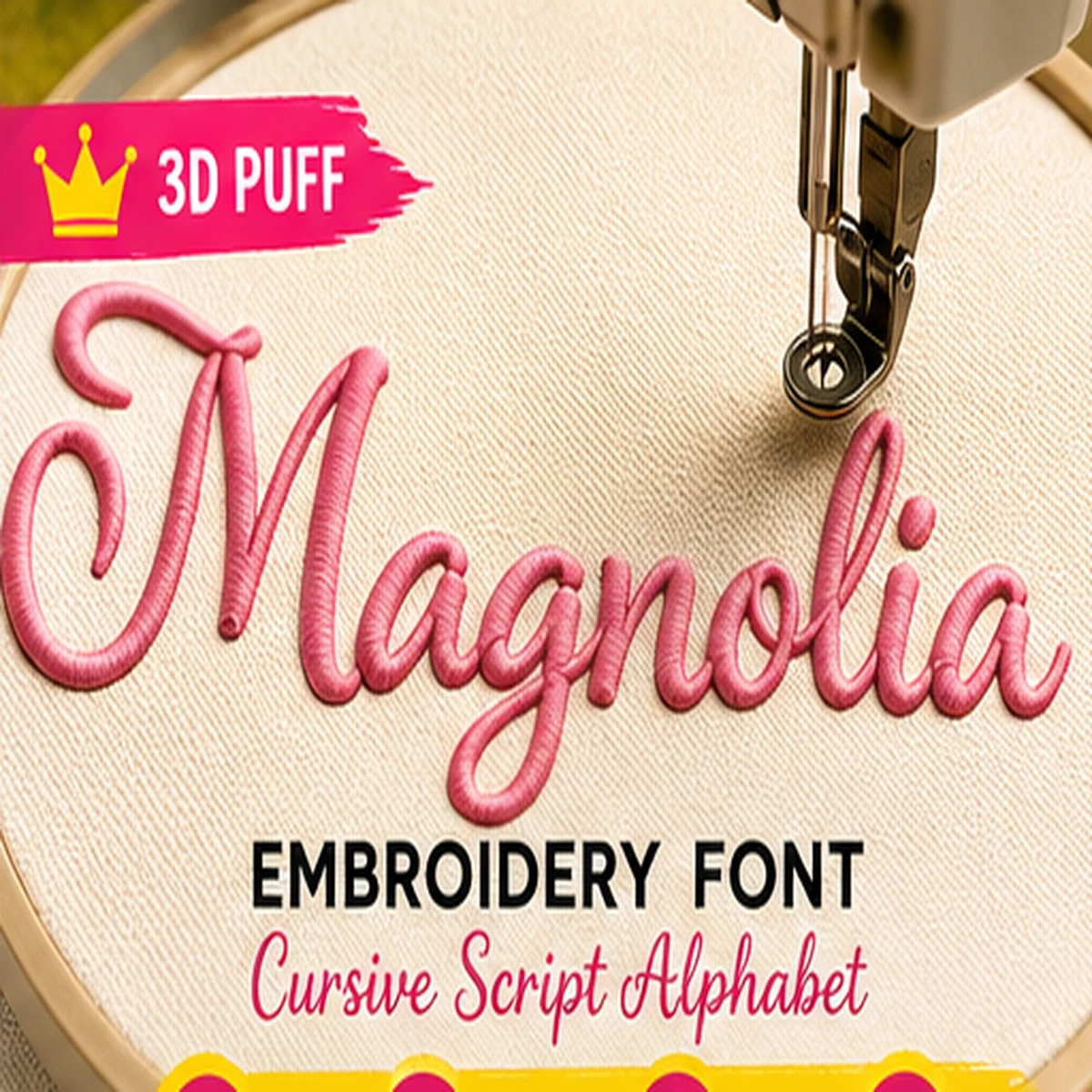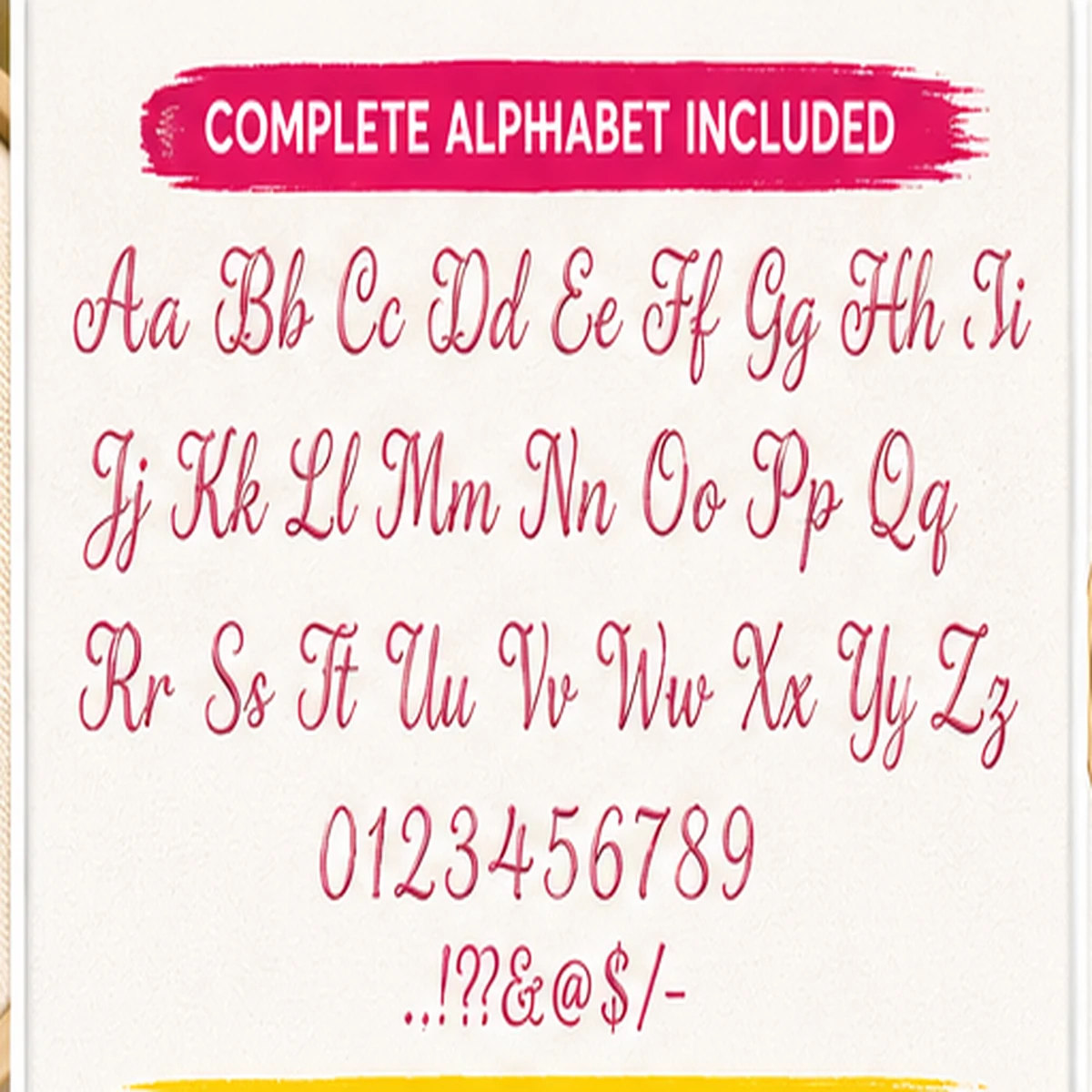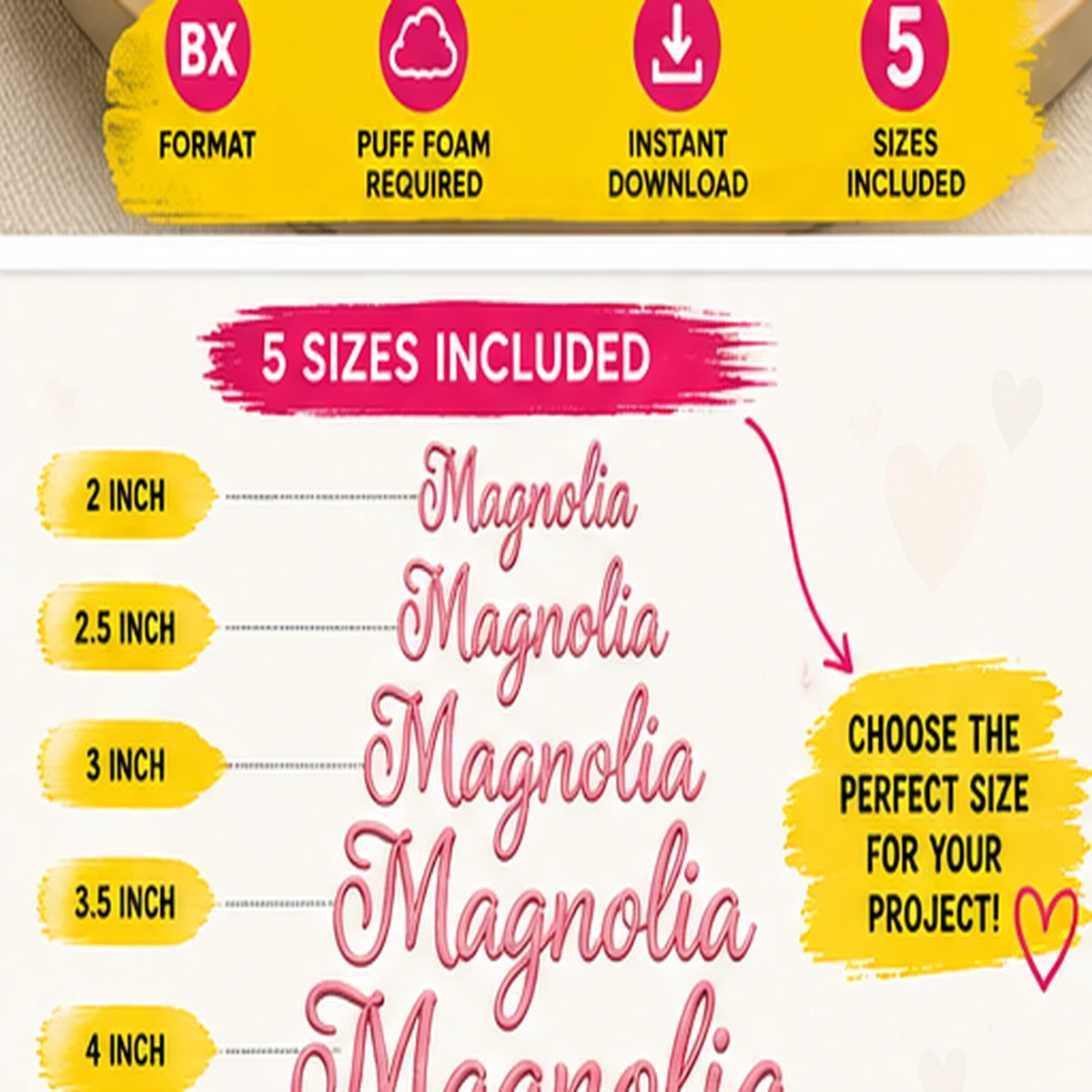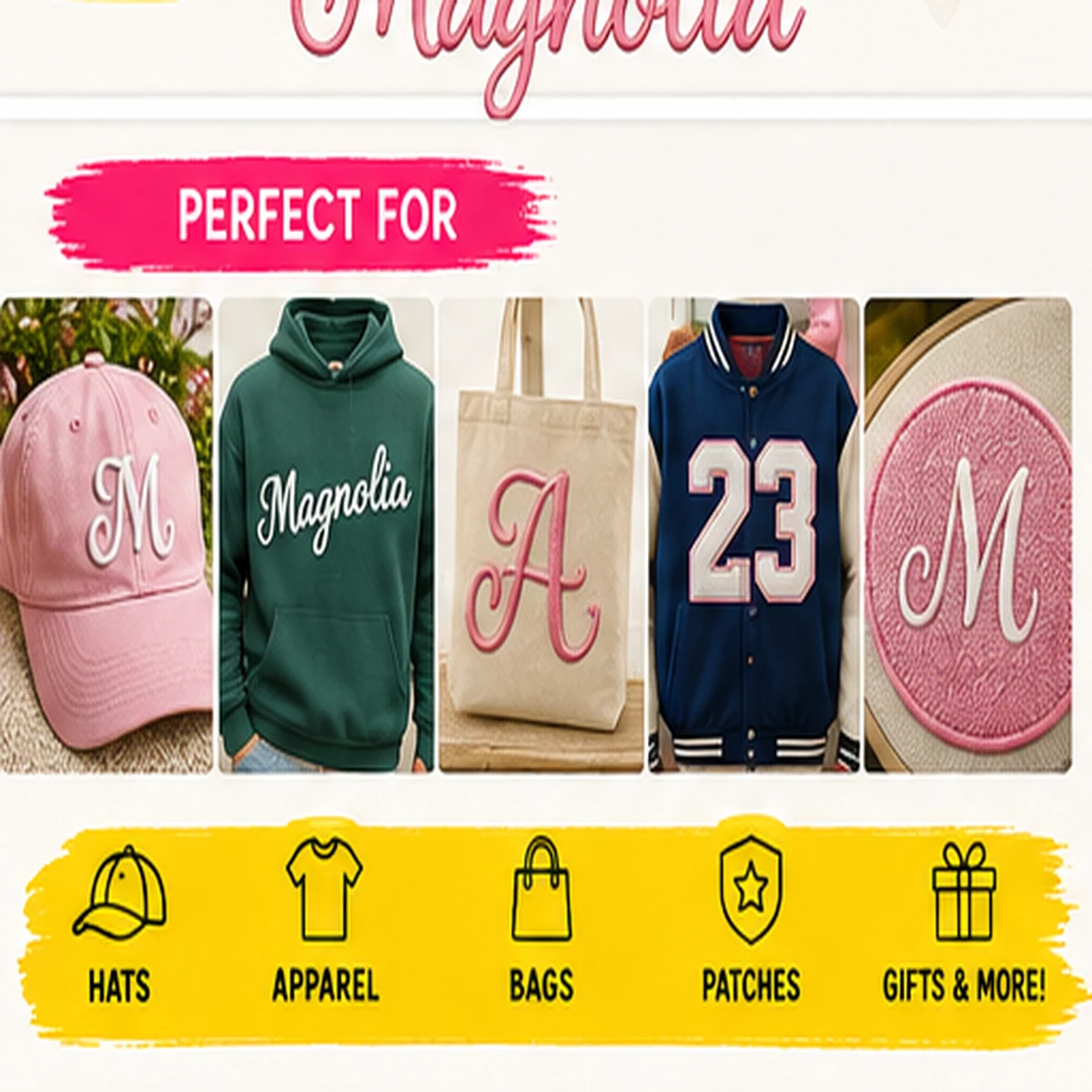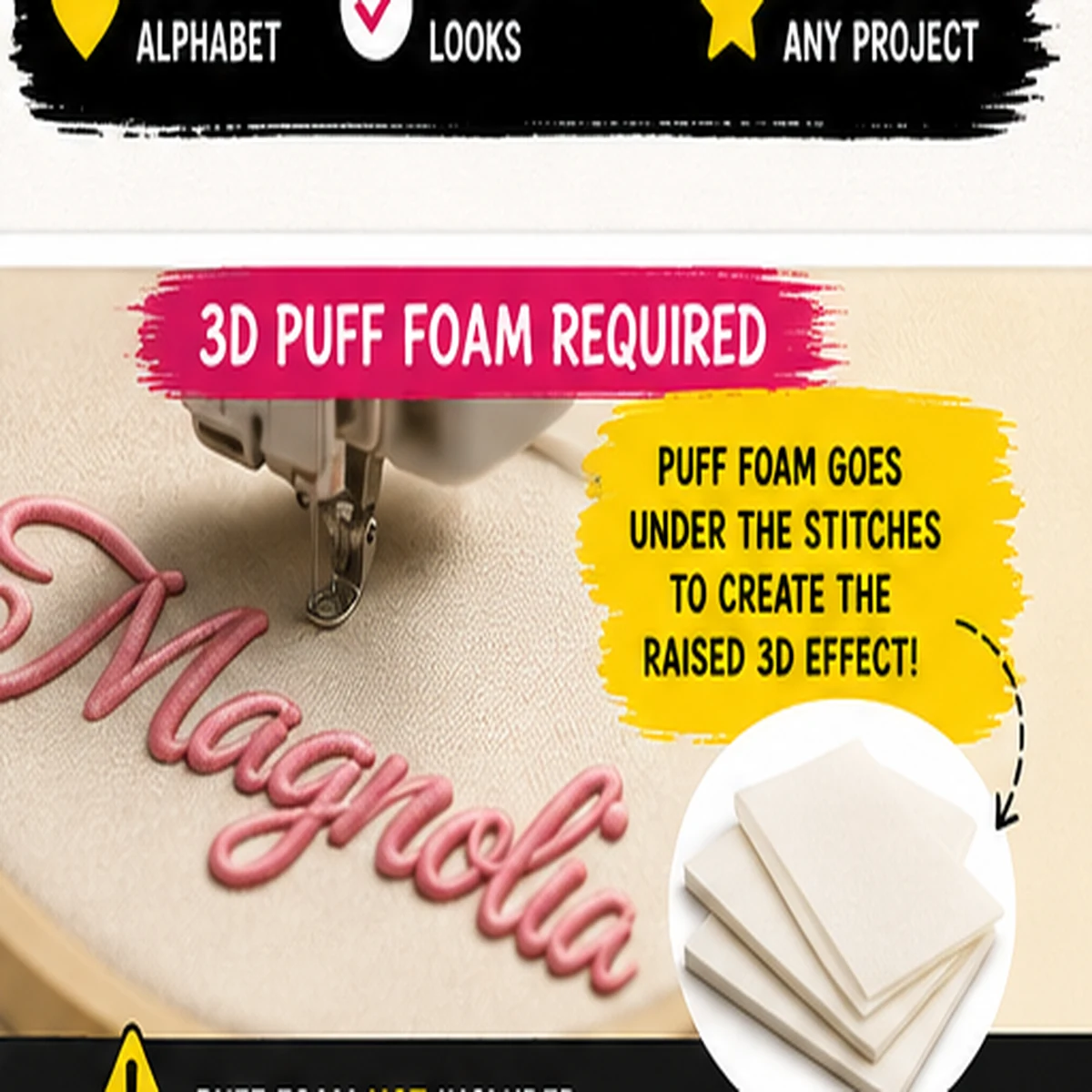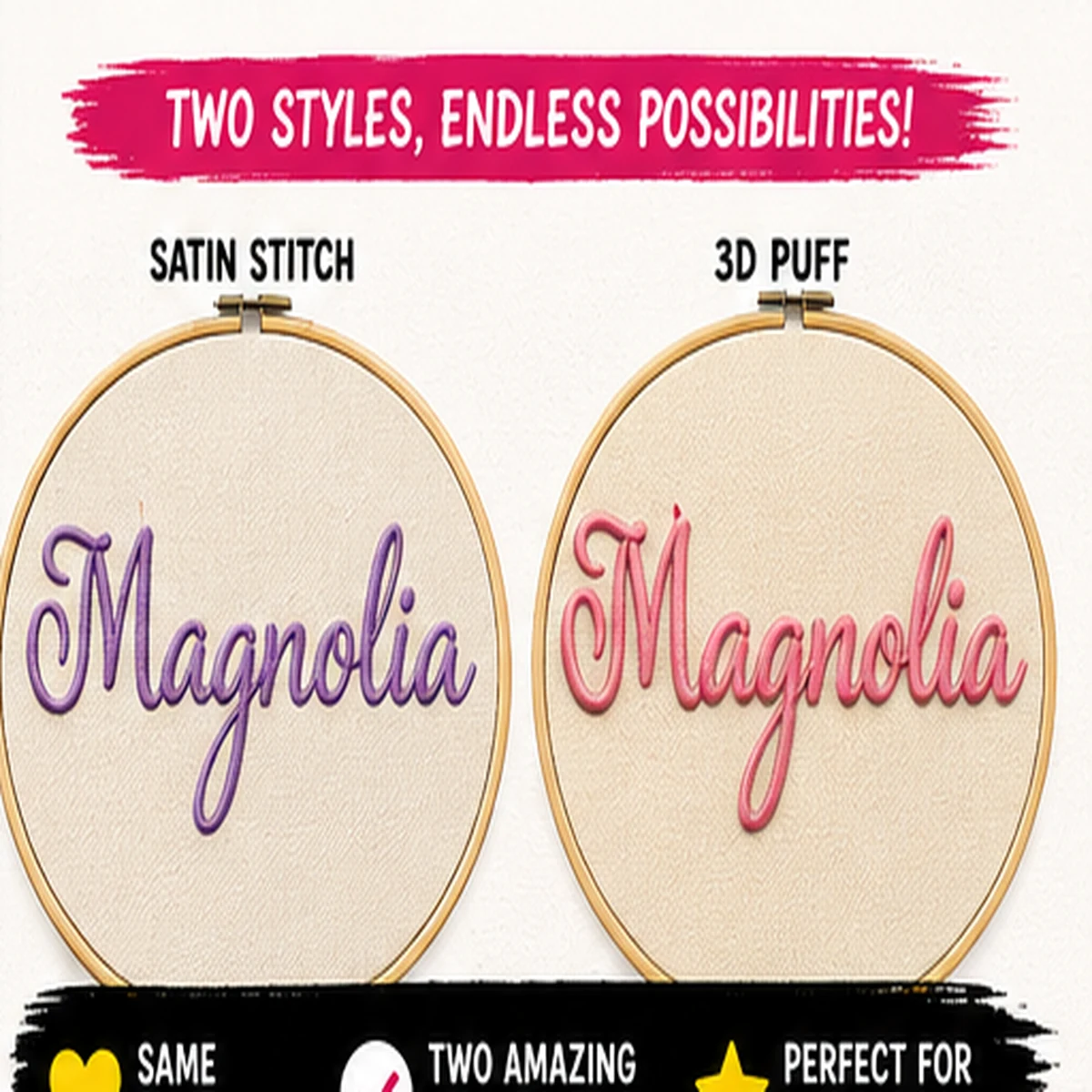
Elegant Script. Bold 3D Dimension.
Give names, initials and custom lettering a beautifully raised finish with the Magnolia 3D Puff Embroidery Font.
Magnolia combines an elegant cursive script style with the dimensional appearance of puff embroidery, making it ideal for projects where ordinary flat lettering simply isn’t enough.
- Uppercase letters A–Z
- Lowercase letters a–z
- Numbers 0–9
- Selected punctuation and symbols
DESIGNED FOR 3D PUFF EMBROIDERY
This alphabet is intended for 3D puff foam embroidery.
Puff foam is placed underneath the embroidery stitches, allowing the lettering to rise above the fabric and create the distinctive dimensional effect shown in the product examples.
PERFECT FOR
Use Magnolia lettering for projects such as:
- Personalized hats
- Caps
- Sweatshirts
- Jackets
- T-shirts
- Bags
- Patches
- Names
- Initials
- Monograms
- Team apparel
- Custom gifts
- Boutique embroidery
- Personalized merchandise